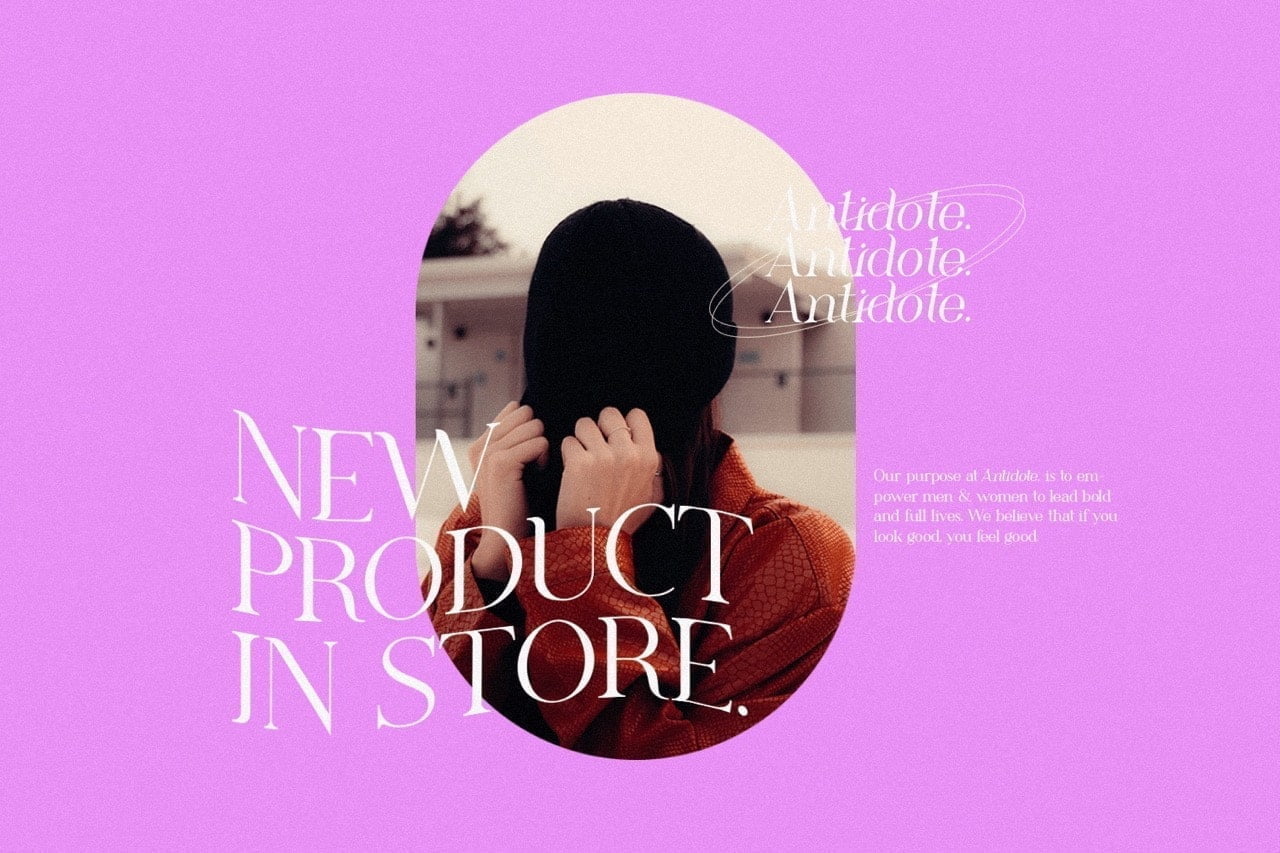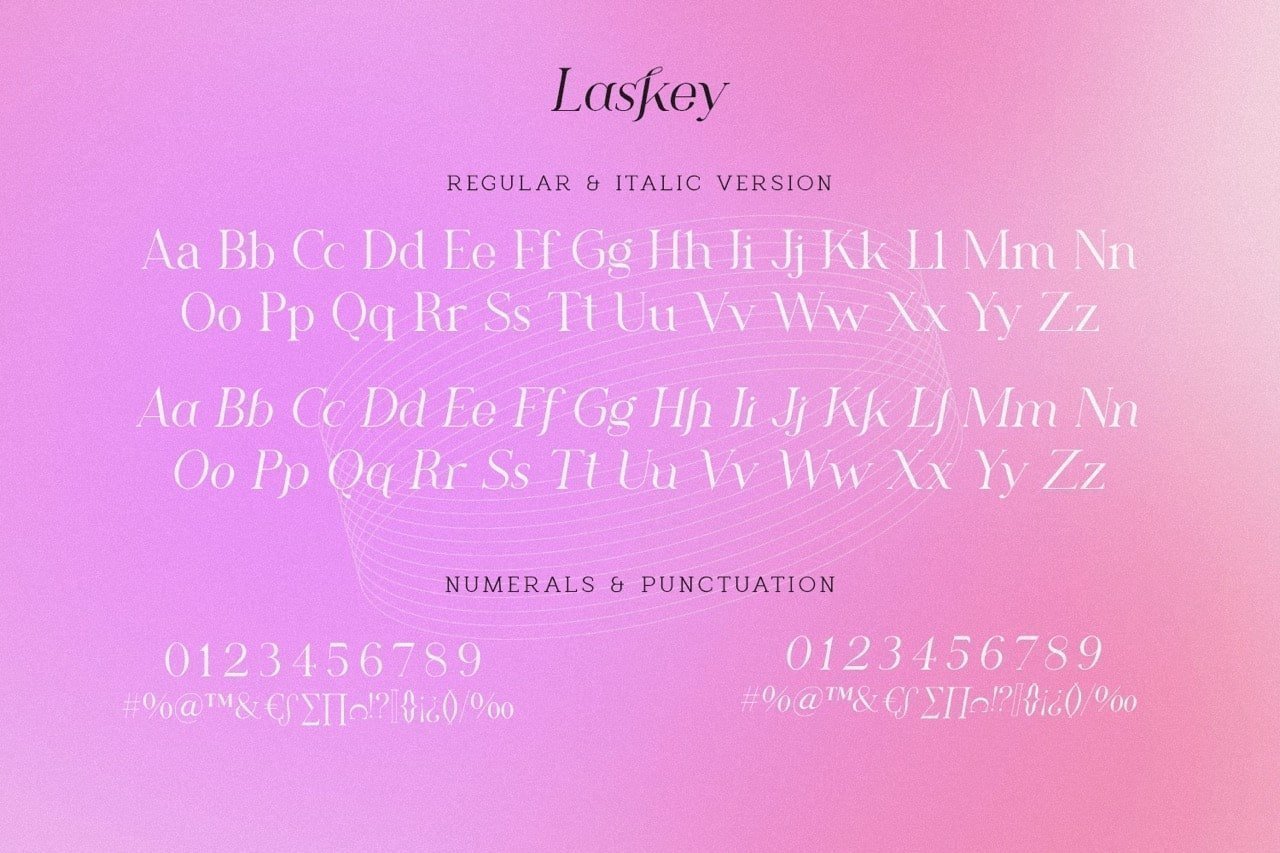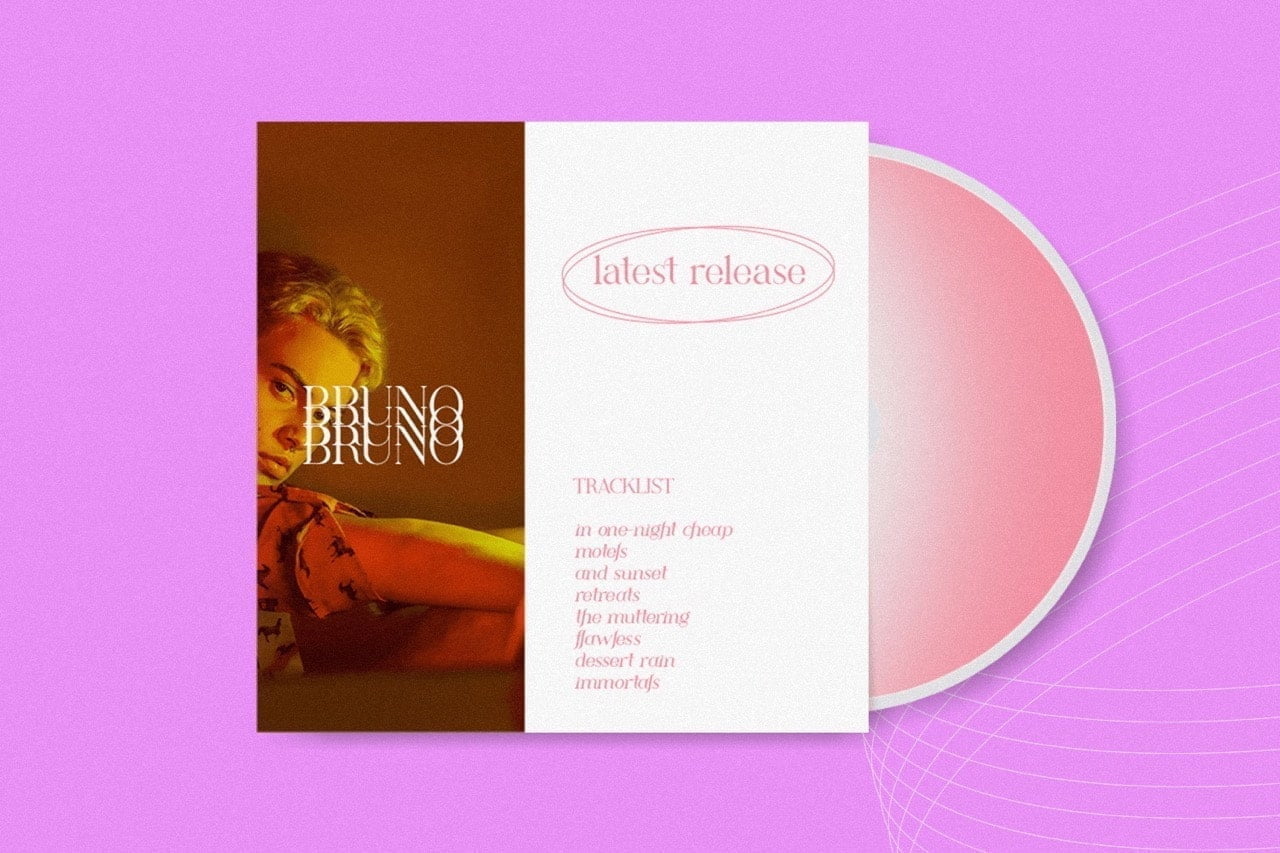
Take a trip back in time with Laskey. It’s fresh and fun, with those mesmerizing classic serifs you love, but it’s also sophisticated and modern. The smooth curves give it an old-school vibe, while the unique ligatures will make your designs stand out from anything else around.
- 2 Styles (Regular and Italic)
- Stylistic Ligatures and Alternate Glyphs
Laskey Serif